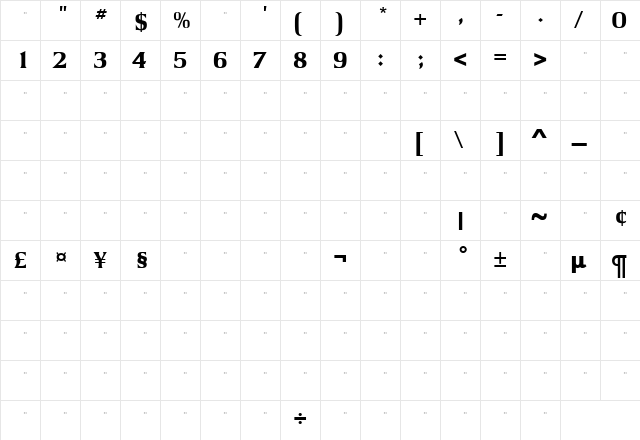
ArgusExBoldTab Bold
Design Context for ArgusExBoldTab Typeface
ArgusExBoldTab is a composed and adaptable typeface that performs quietly and consistently across a wide range of design contexts. The heavy weight commands attention and anchors typographic hierarchies.